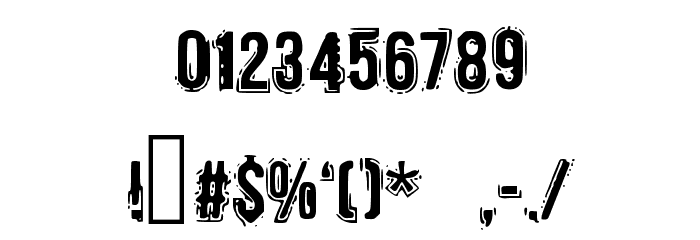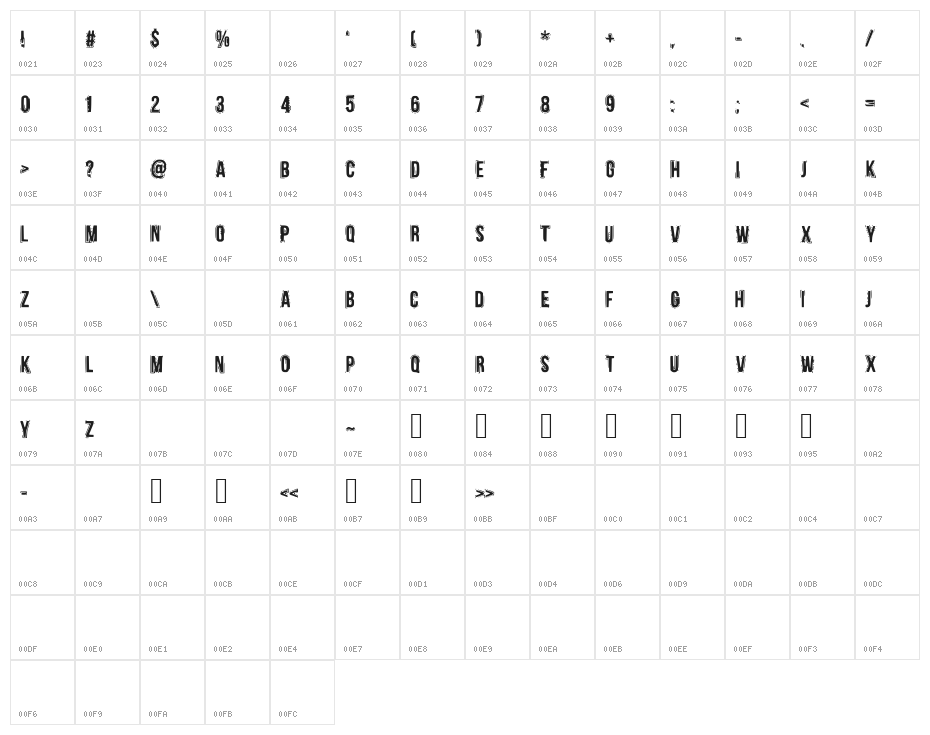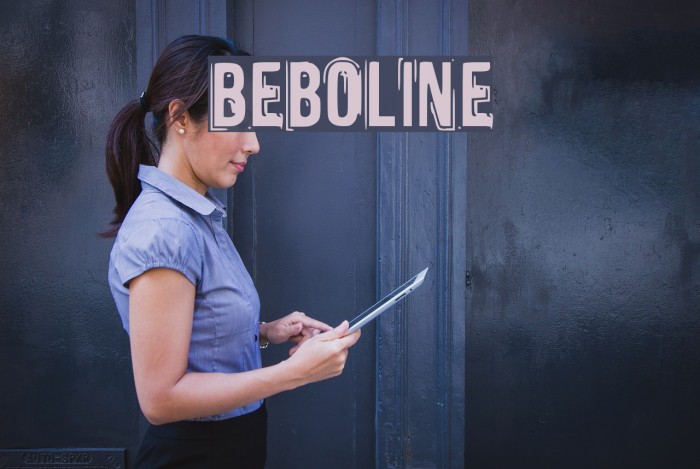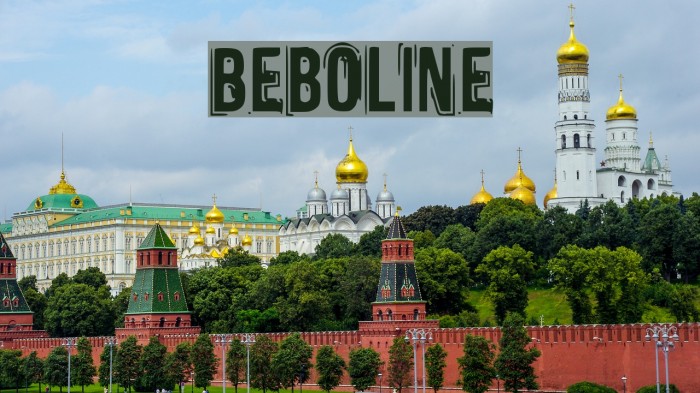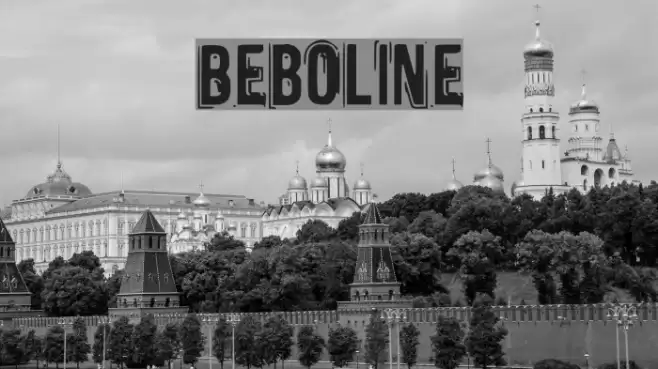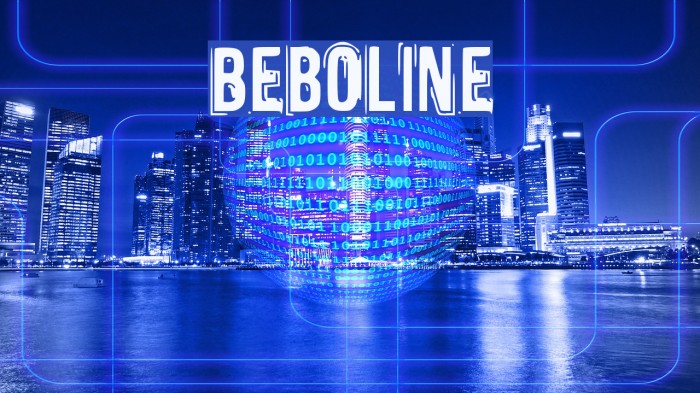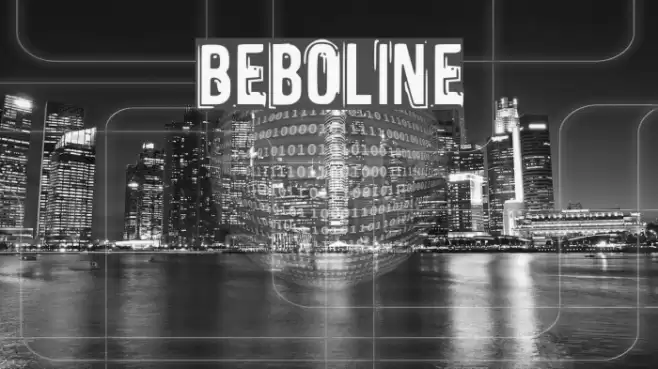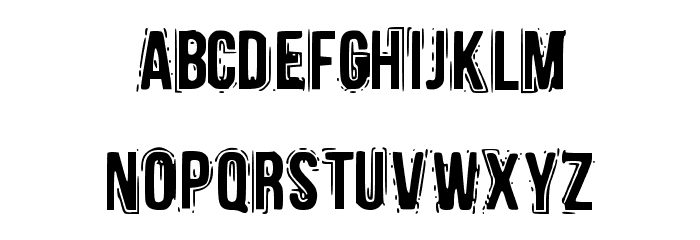
Beboline Font
Beboline Description
This font features a bold and impactful style with a distressed, grunge-like texture that gives it a rugged and edgy appearance. The uppercase letters are prominent, with thick strokes and a slightly uneven finish that adds to the distressed look. The numerals and special characters maintain this aesthetic, ensuring consistency across all glyphs. The font's unique style makes it stand out, perfect for projects that require a bold statement or an urban, gritty feel.
| Overall Style | Grunge, Urban, Edgy |
| Proposed Projects | Ideal for posters, album covers, streetwear branding, or any project needing a bold, edgy look. |